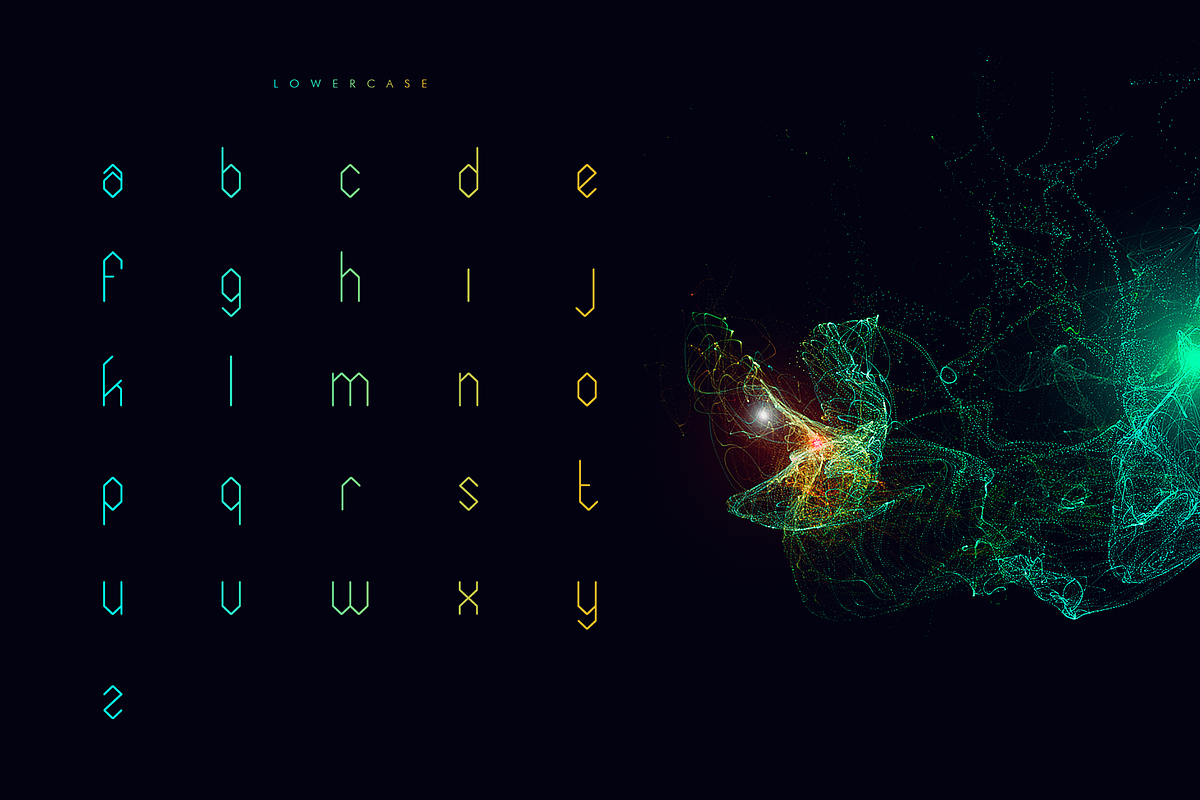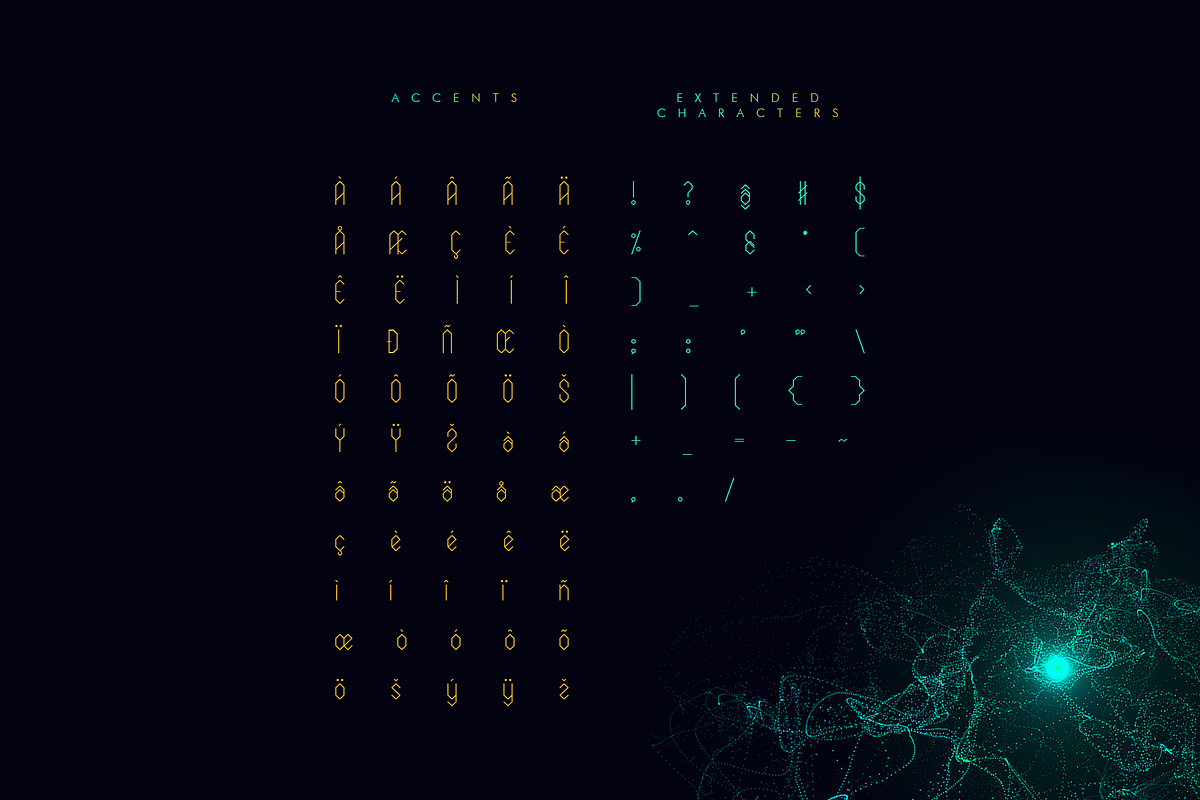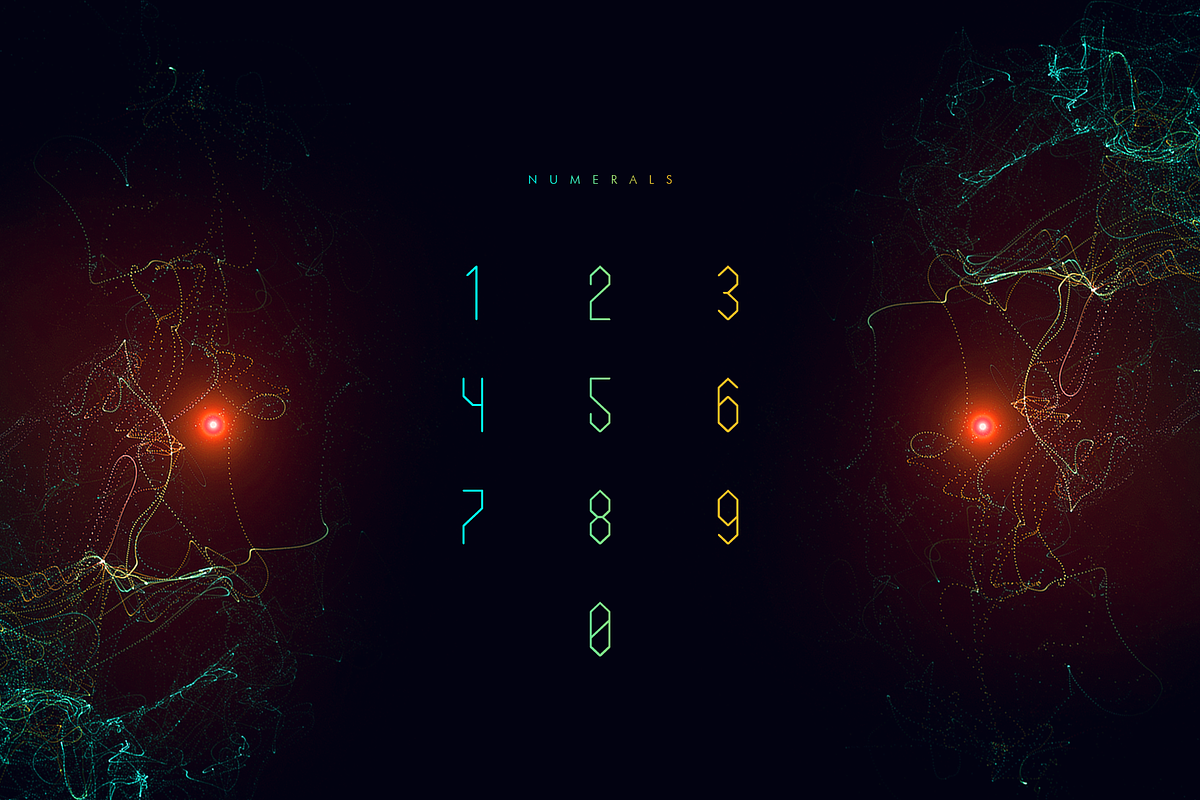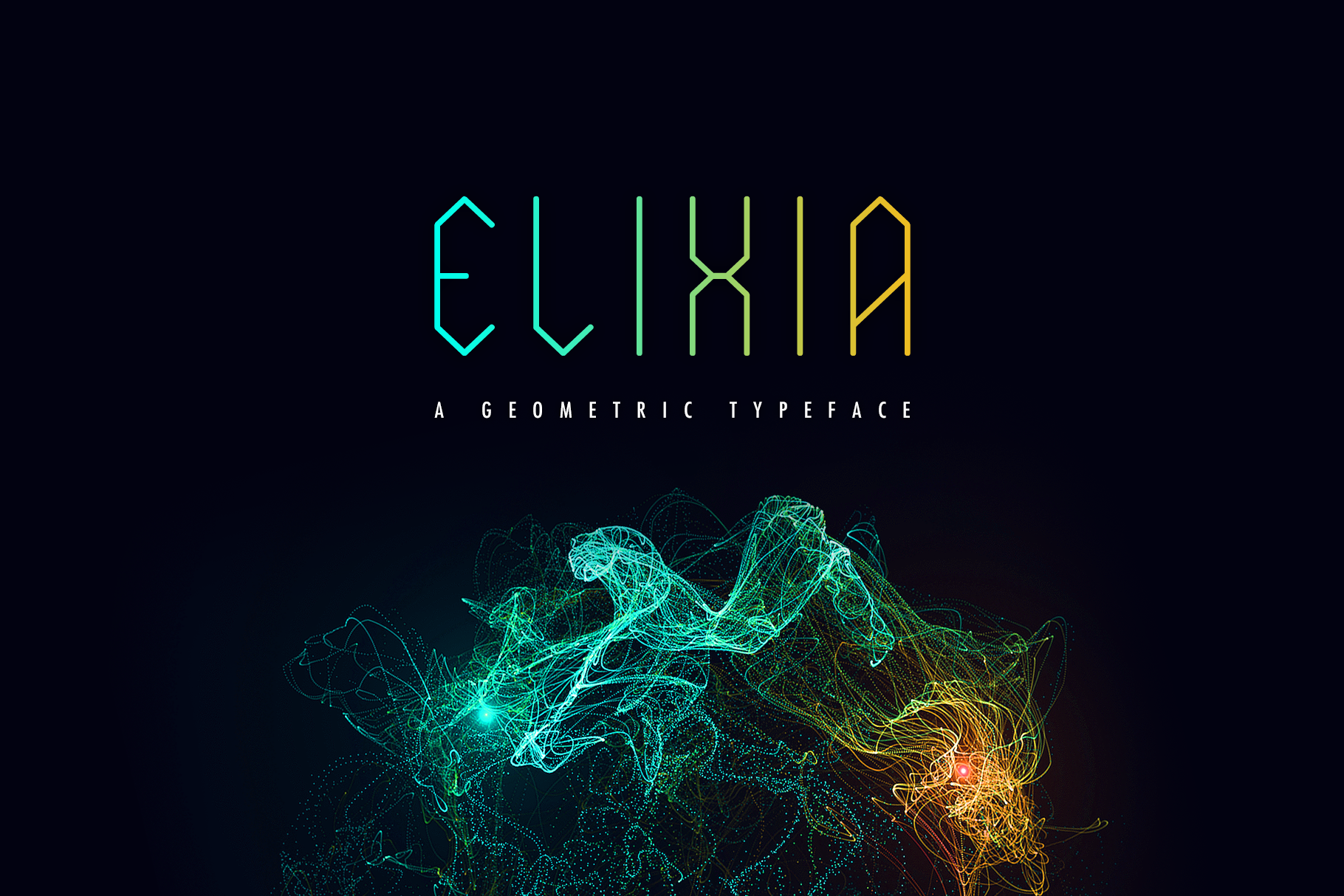
Elixia | Geometric Font
ELIXIA™ is a slightly condensed typeface inspired by the hexagonal grid system.
It has a strong vertical emphasis, with a solid, geometric feel.
Its clean ruler-straight lines, restrained forms, unique shape and proportions gives the face a dynamic, industrial futuristic aura, yet, in a complete paradox in itself, also lends an archaic and mystical feel — A quirky mix of medieval and modern.
It is a single-weight typeface with a total of 200 characters / glyphs that includes:
- Extended Characters
- Accents
- Stylistic Alternates.
ELIXIA™ is most suitable as a decorative display font.